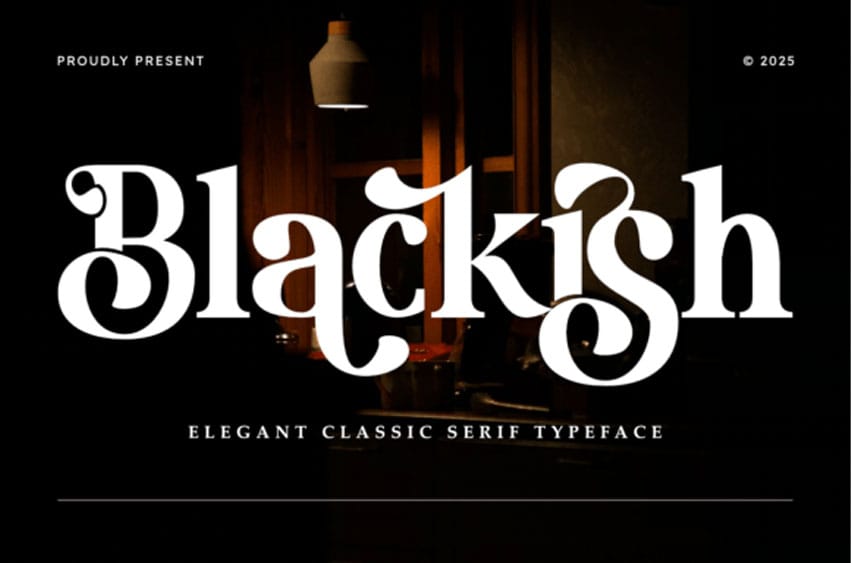
Blackish Font is a sophisticated serif typeface that blends classic elegance with modern flair. Featuring high-contrast strokes and unique decorative curves, this font is designed to make a statement. Its timeless silhouette makes it perfect for high-end branding, editorial layouts, and luxury packaging.